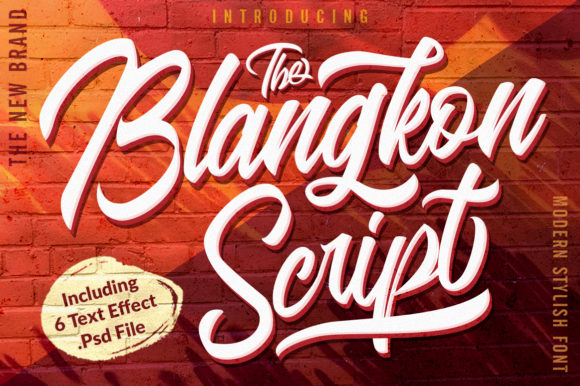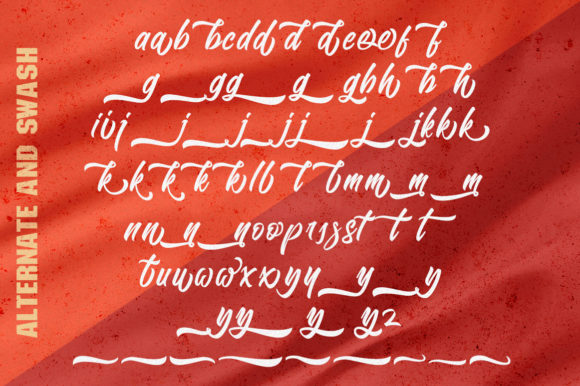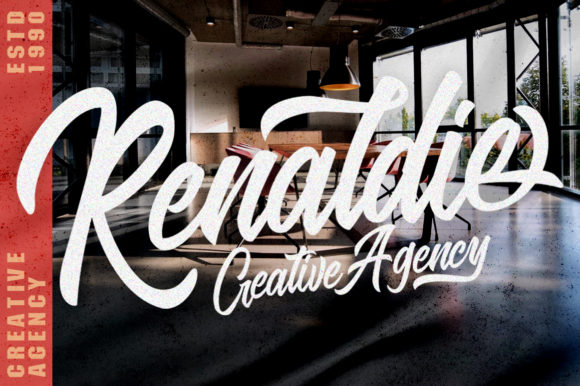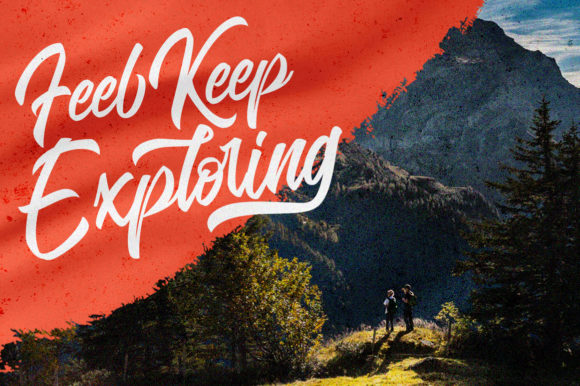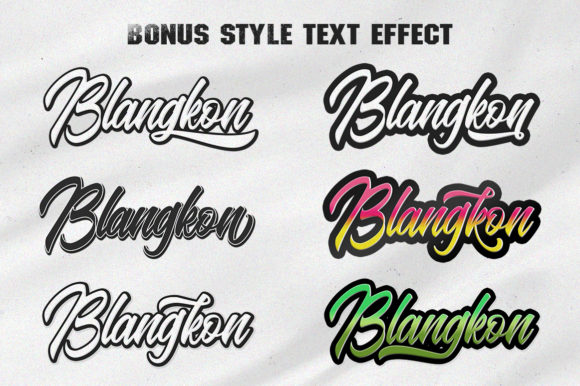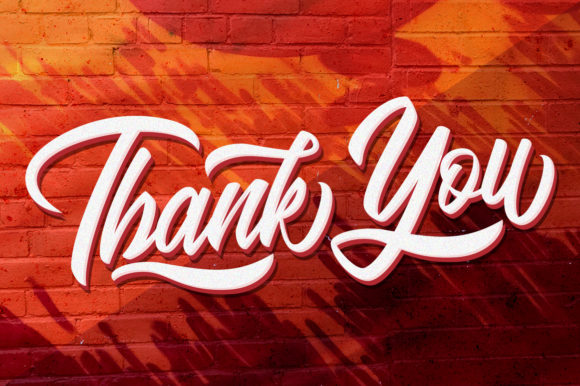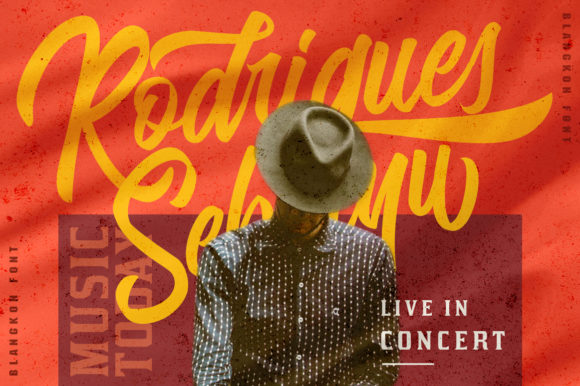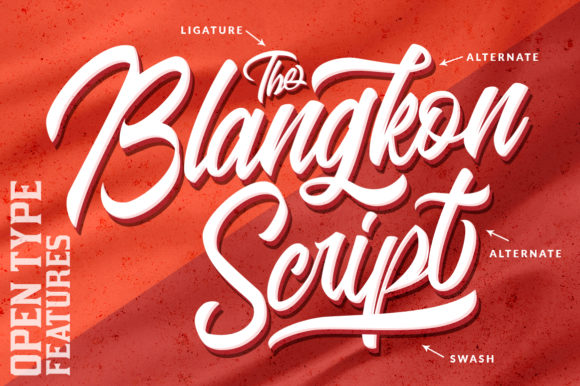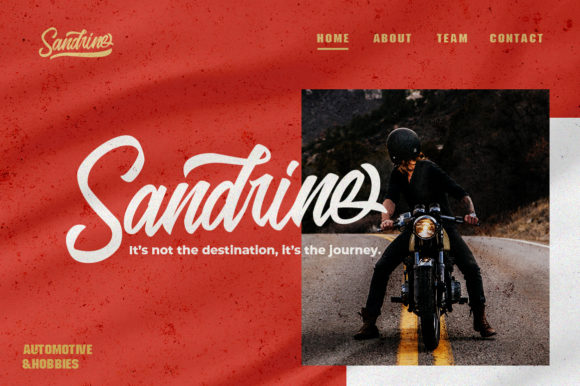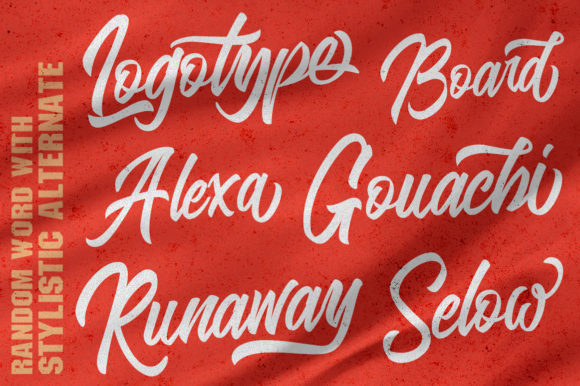
Blangkon Script Font
About Blangkon Script Font
The Blangkon Script is an amazing script font, inspired by contemporary fashion and streetwear. It has a natural handwritten touch which will give your design a personal feel.
It’s perfect for many different projects such as logos & branding, invitations, stationery, wedding designs, social media posts, advertisements, product packaging’s, and much more!